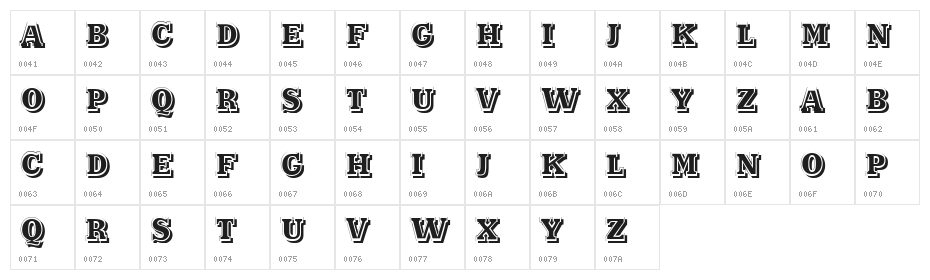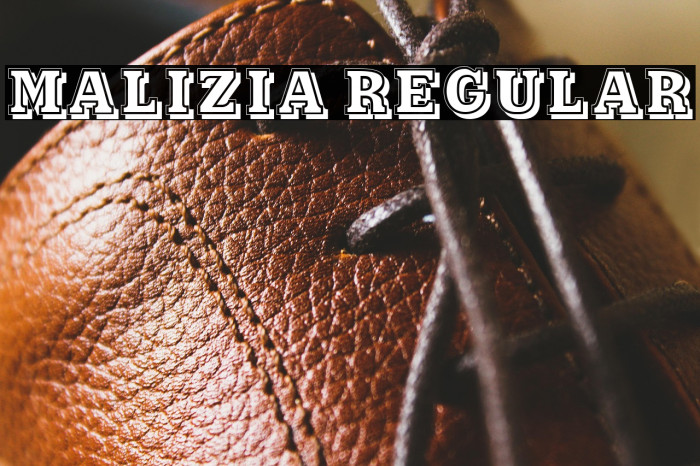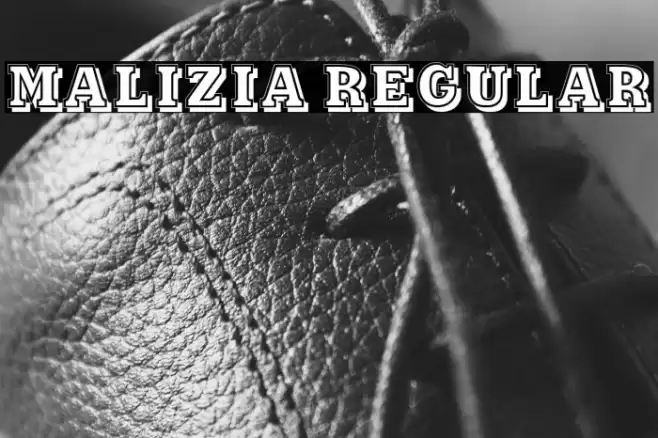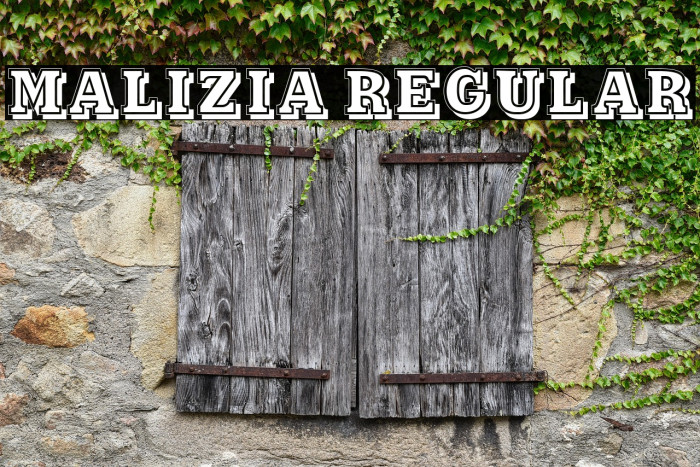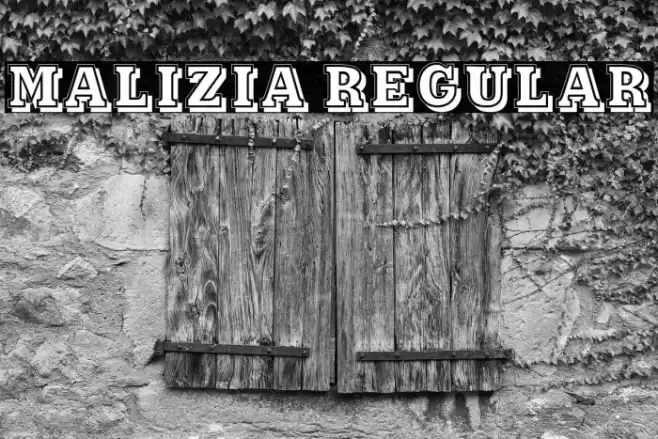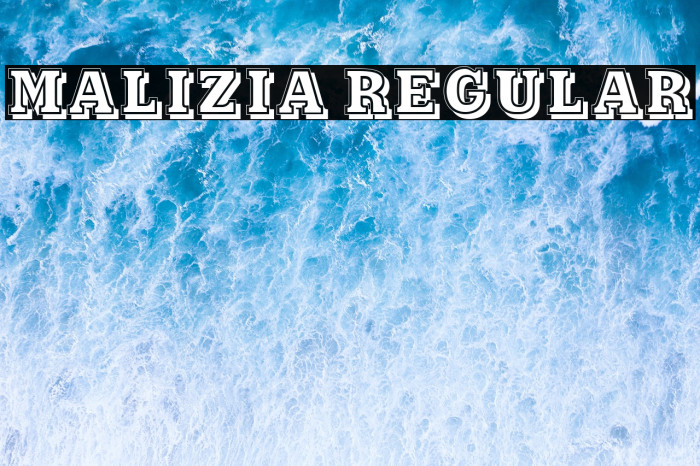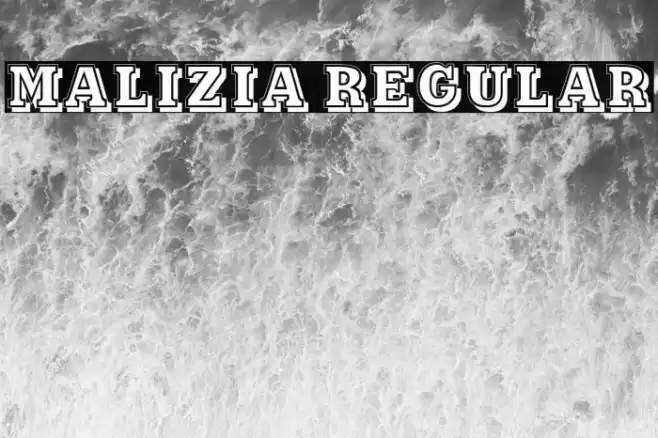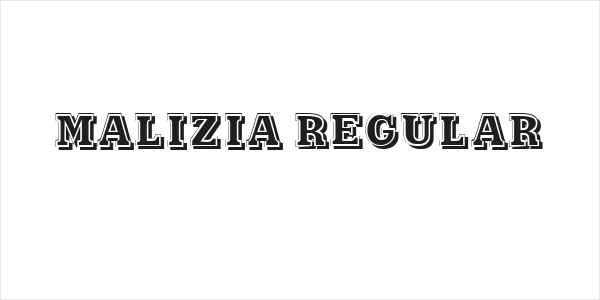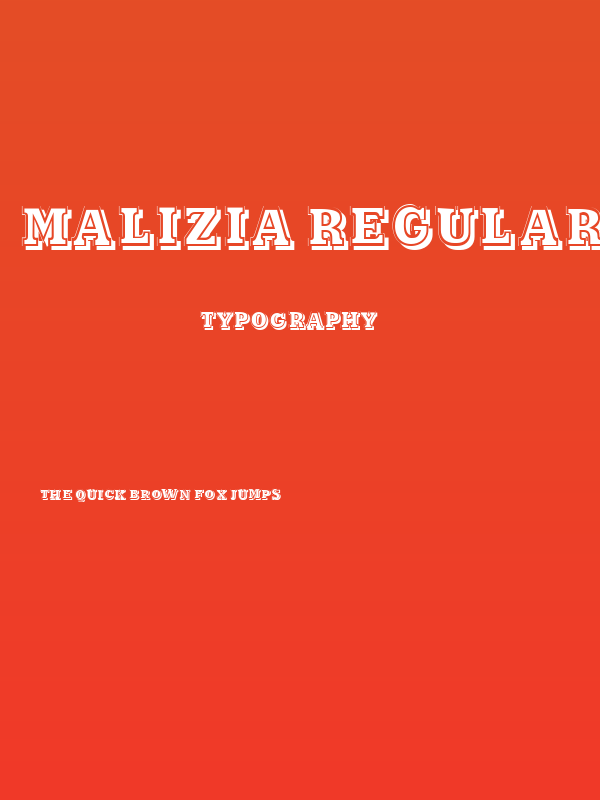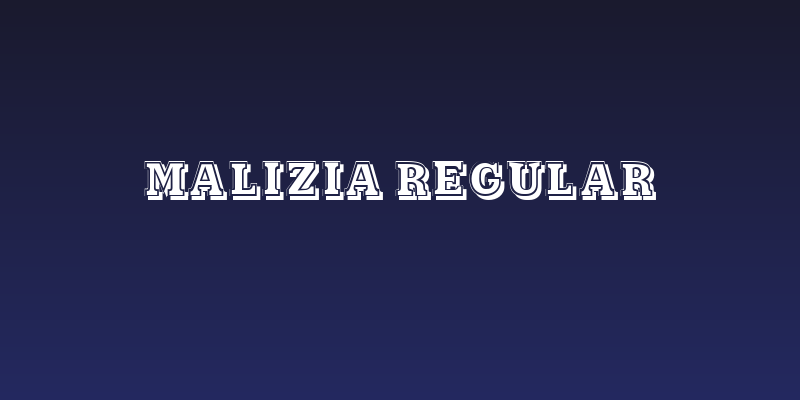
Malizia Regular Font
Malizia Regular Description
This font features a bold, decorative style with a strong presence, characterized by its thick, shadowed outlines that give it a three-dimensional effect. The uppercase letters are uniform in height, with a consistent width that maintains a balanced appearance. The serifs are prominent, adding a touch of classic elegance to the overall design. The font's intricate detailing makes it stand out, making it ideal for attention-grabbing headlines or titles. Its boldness and decorative elements suggest a vintage or retro aesthetic, suitable for projects that require a touch of nostalgia or artistic flair.
| Proposed Projects | Perfect for vintage posters, retro-themed branding, eye-catching headlines, and artistic designs. |